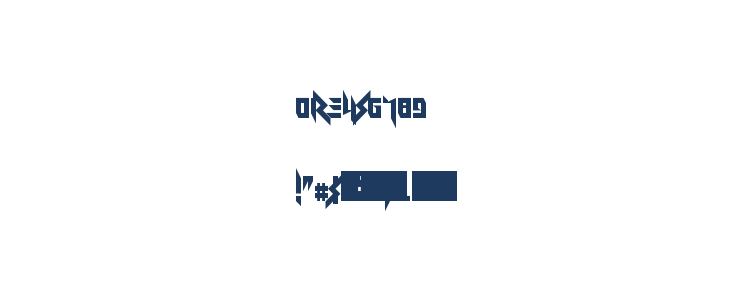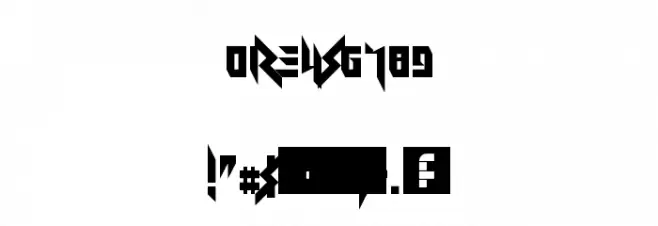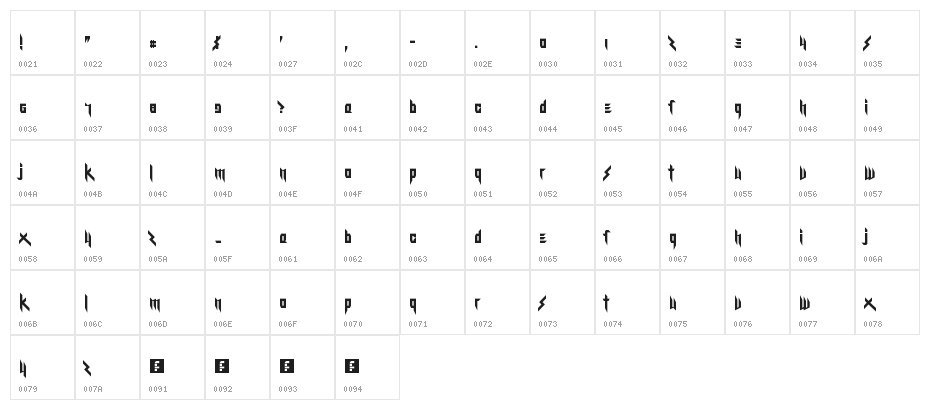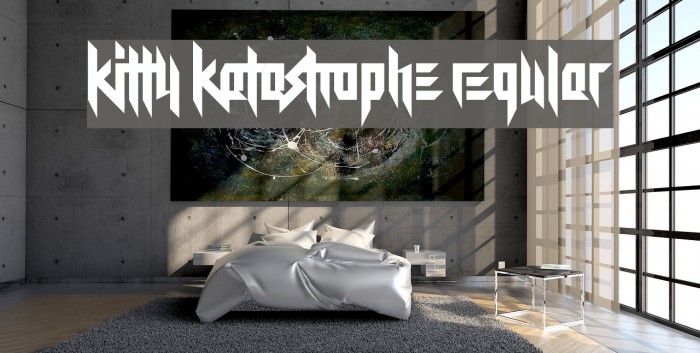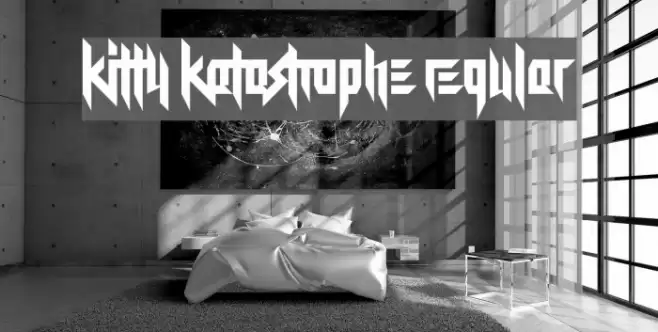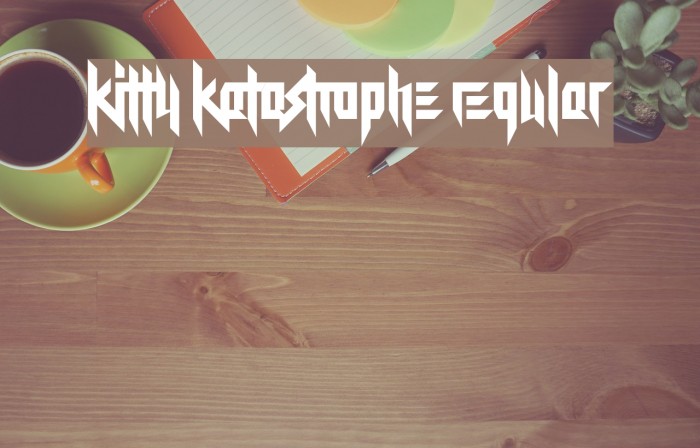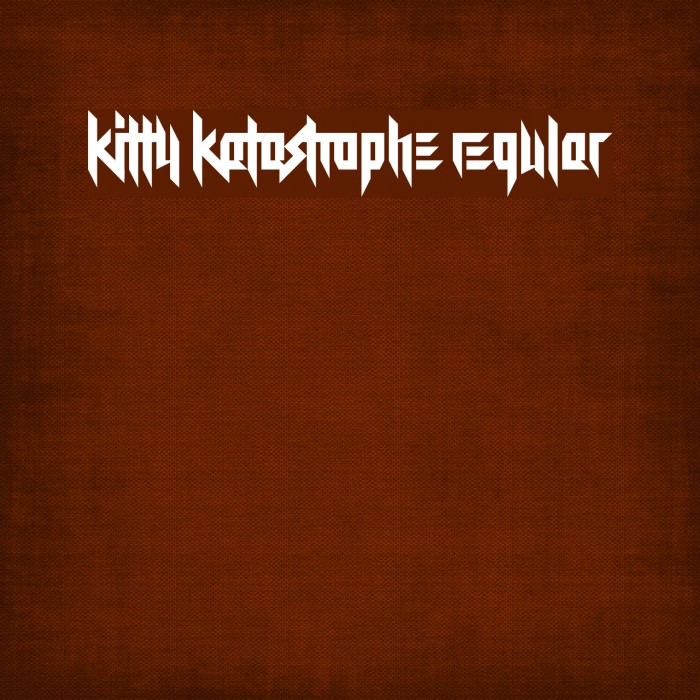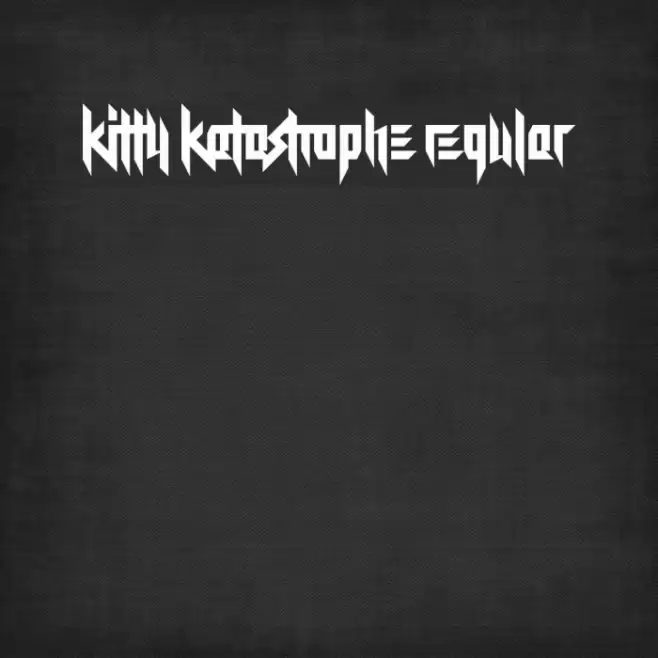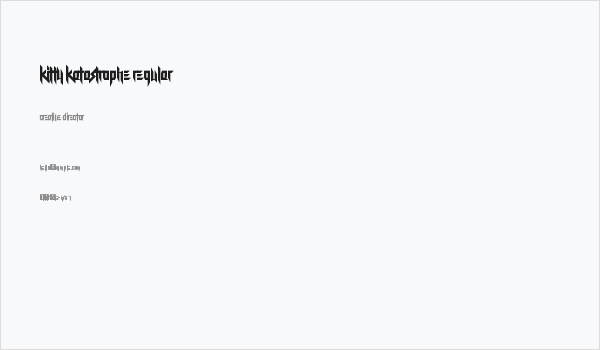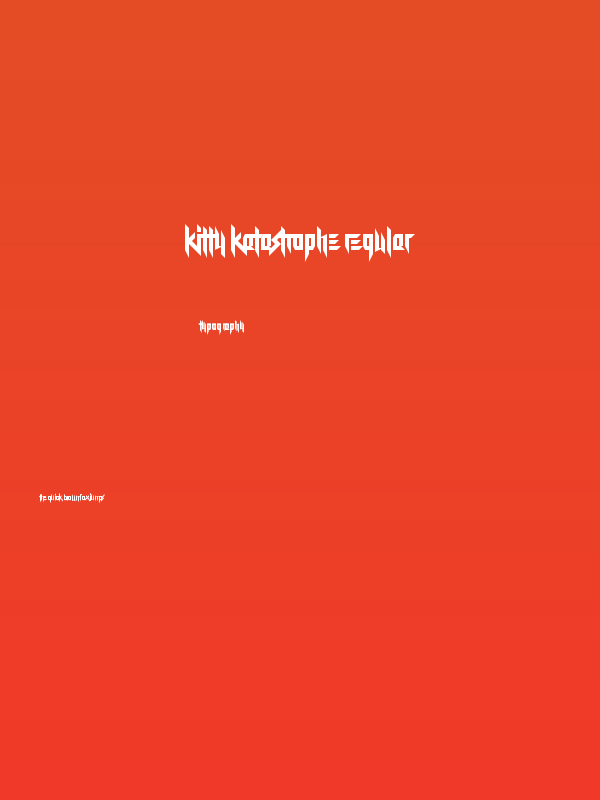
Kitty Katastrophe Regular Font
Kitty Katastrophe Regular Description
This font features a bold and angular design, characterized by sharp edges and a geometric structure. The letters are crafted with a distinct, edgy style that gives off a futuristic and aggressive vibe. The uppercase and lowercase letters maintain a consistent height, creating a uniform appearance. The numbers and special characters follow the same angular theme, ensuring a cohesive look across all characters. This font's unique style makes it stand out, ideal for projects that require a strong visual impact.
| Proposed Projects | Perfect for video game titles, sci-fi movie posters, band logos, and edgy branding materials. |